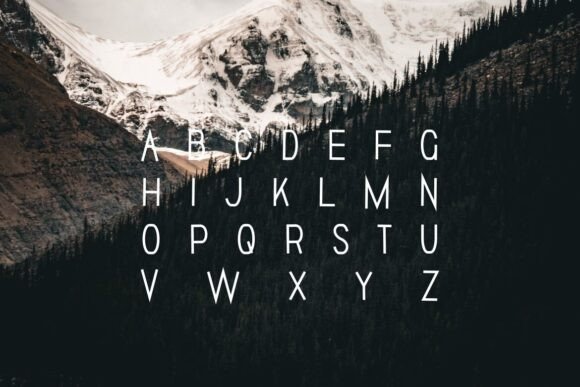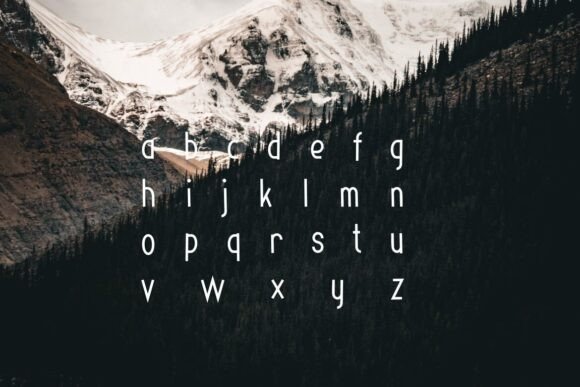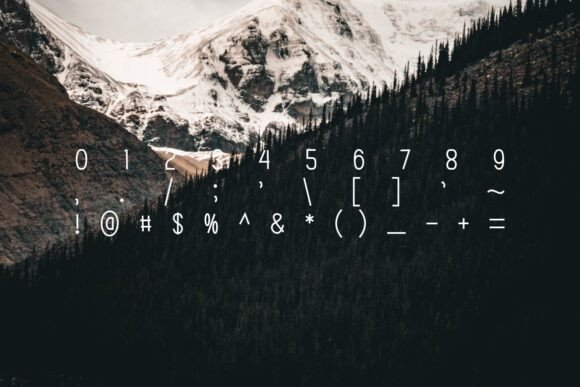
The Elusive Font: A Designer’s Quest for Perfection
I still remember the frustration of working on a luxury branding project, searching for the perfect font to capture the essence of the client’s high-end product. The design brief was clear: sleek, modern, and sophisticated. I scoured the internet, tried countless fonts, but nothing seemed to fit the bill. That was until I stumbled upon Efaboner Font. ✨
First Impressions: A Love Affair with Efaboner
Efaboner Font is a sleek and modern sans-serif font with a stylish, elongated design. Its clean lines and contemporary aesthetic make it a perfect choice for branding, editorial layouts, luxury packaging, and minimalist logos. With a refined yet bold presence, Efaboner adds sophistication and elegance to any project, whether for digital or print design.
What I Love About Efaboner
- ✨ Versatility: Efaboner works beautifully in a variety of contexts, from digital screens to print materials.
- ✅ Legibility: The font’s clean lines and generous spacing ensure that it’s easy to read, even at small sizes.
- 💡 Creativity booster: Efaboner’s unique design elements and OpenType features inspire creative experimentation.
While Efaboner is an exceptional font, there are a few minor considerations to keep in mind: 🤔
- ⚠️ Limited language support: Efaboner may not support all languages or special characters.
- ⚠️ Glyph limitations: Some users may find the glyph set limited for certain design applications.
The Story Behind Efaboner: Designer Inspiration
Efaboner was designed with the modern designer in mind. Its creator sought to craft a font that would embody the perfect balance of style, sophistication, and versatility. Inspired by the urban landscape and the world of luxury design, Efaboner was born from a passion for clean lines, elegant curves, and attention to detail.
| Font Name | Efaboner Font |
| Author | Kenrichi |
Q: What makes Efaboner suitable for luxury branding?
A: Efaboner’s sleek, modern design and sophisticated aesthetic make it an excellent choice for luxury branding, adding a touch of elegance and refinement to any project.
Q: Can I use Efaboner for digital and print design?
A: Yes, Efaboner is designed to work beautifully in both digital and print contexts, making it a versatile choice for a wide range of applications.
Q: Does Efaboner support OpenType features?
A: Yes, Efaboner supports OpenType features, including stylistic alternates, glyphs, and ligatures, allowing for creative experimentation and customization.
Q: Is Efaboner easy to read?
A: Yes, Efaboner’s clean lines, generous spacing, and careful attention to typographic detail ensure that it’s easy to read, even at small sizes.